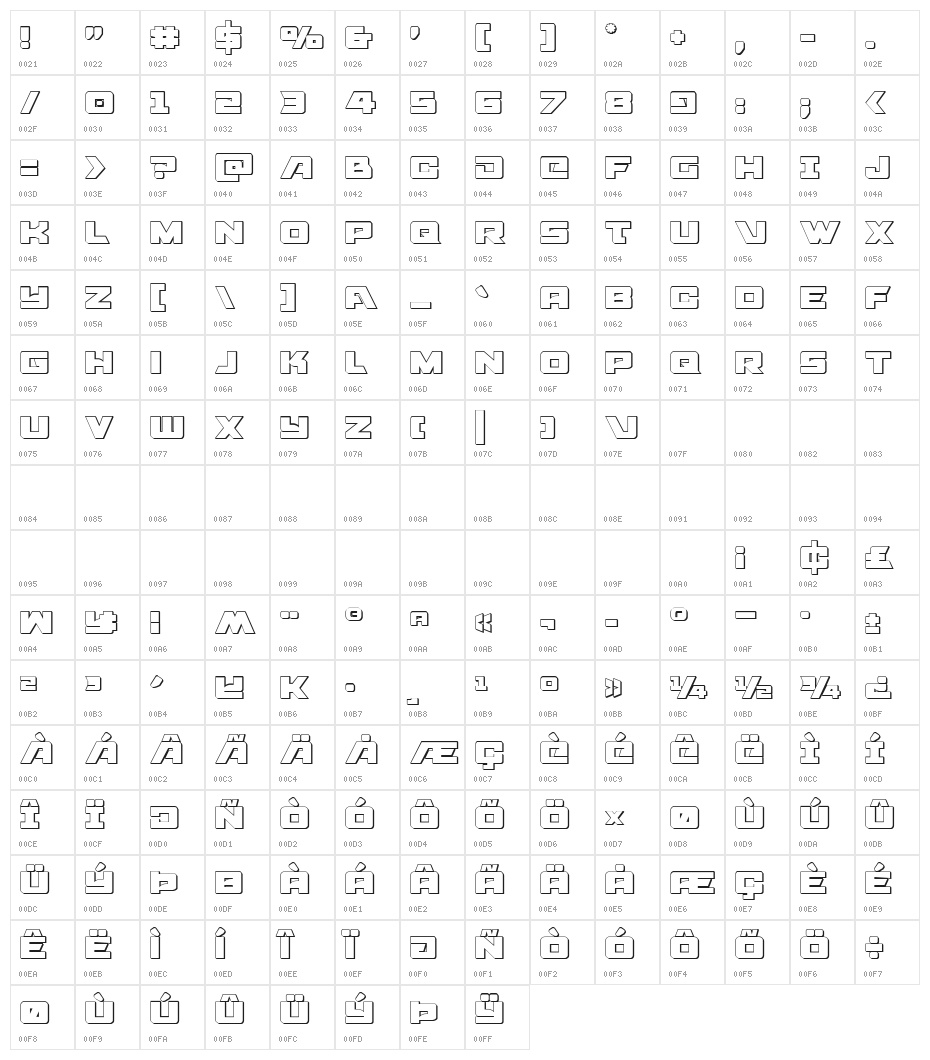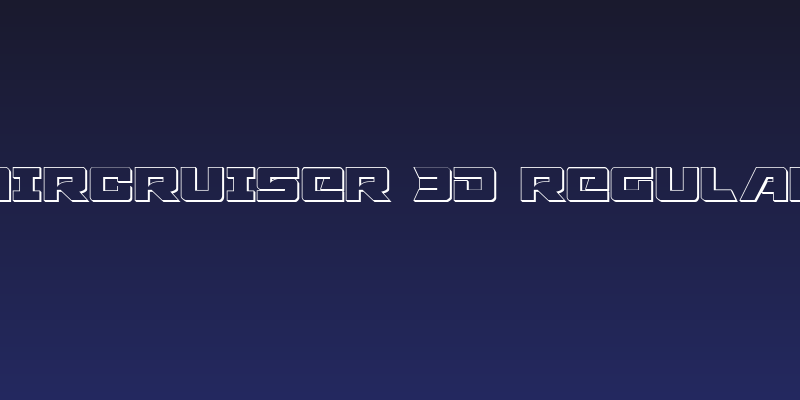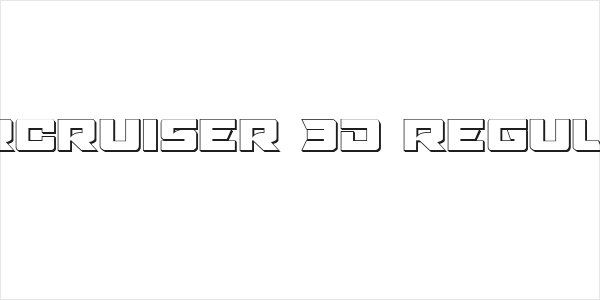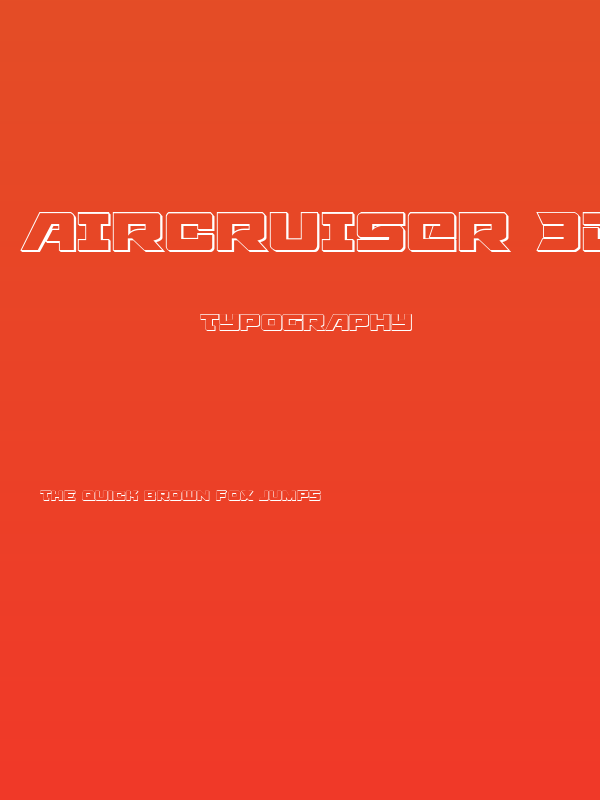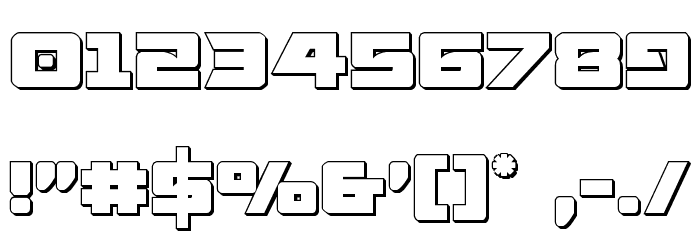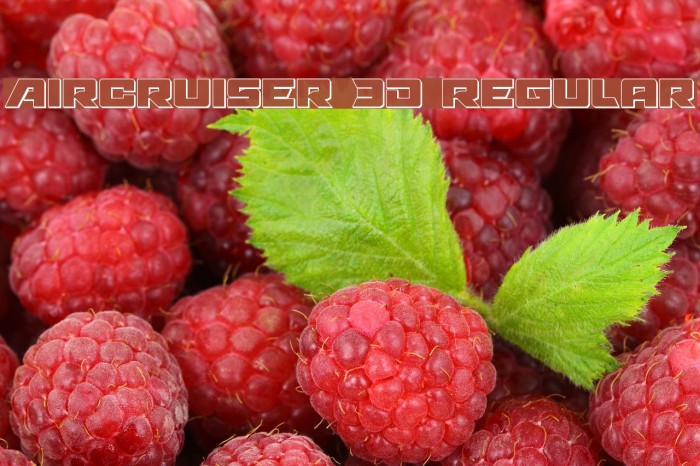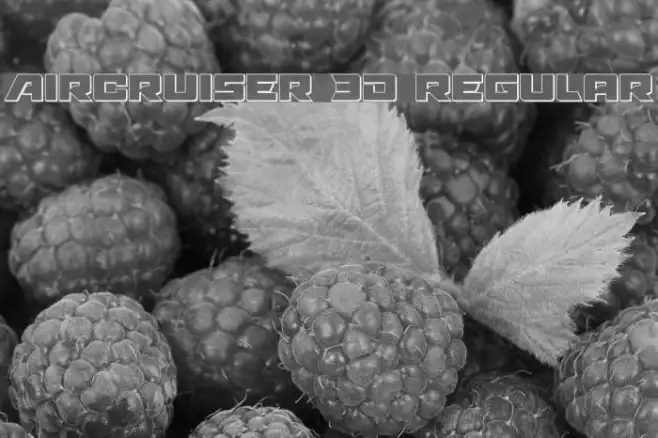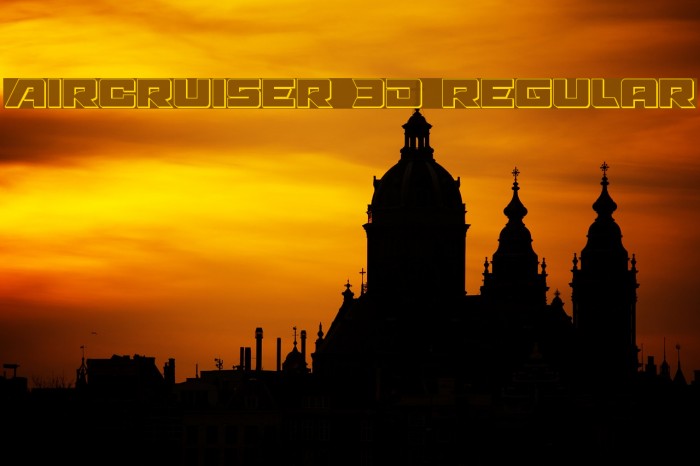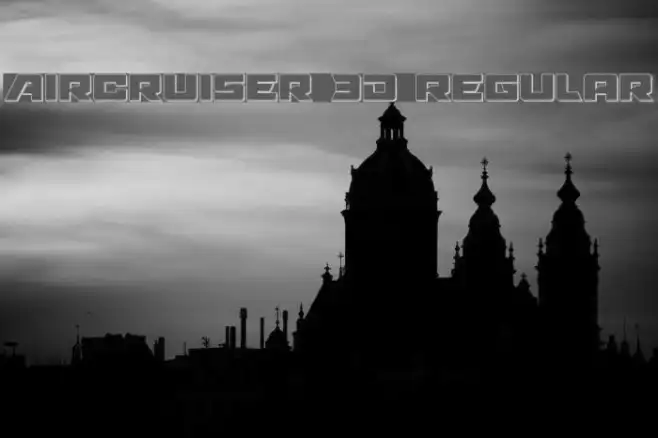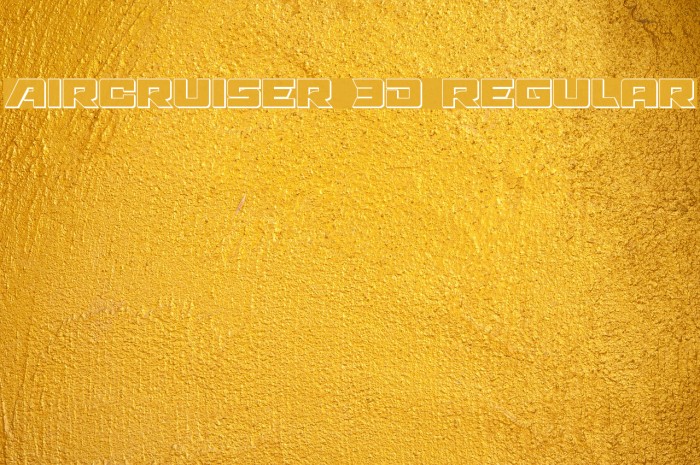
Aircruiser 3D Regular Font
Aircruiser 3D Regular Description
This font features a bold, three-dimensional style with a futuristic and geometric design. The characters are outlined, giving them a hollow appearance that enhances the 3D effect. Each letter has sharp angles and straight lines, contributing to a modern and dynamic look. The font maintains a consistent weight throughout, with uniform stroke thickness that adds to its boldness. The spacing between characters is normal, ensuring readability while maintaining the distinct style. This font is ideal for projects that require a strong visual impact, such as posters, headlines, and branding materials.
| Proposed Projects | Ideal for futuristic branding, sci-fi posters, video game titles, and tech-related designs. |